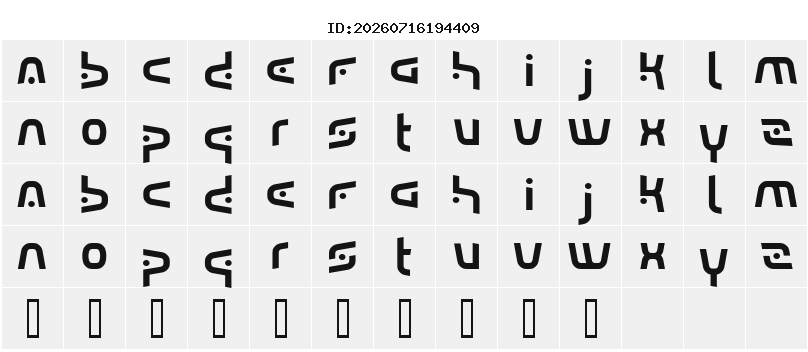
Airswing  Headline Preview
• Font Name: Airswing Headline
• Full Font Name: Airswing Headline
About Airswing Headline.ttf
Airswing Headline.ttf is a modern, elegant sans-serif font designed for ultimate readability and visual harmony. Perfect for branding, headlines, web design, and print materials.